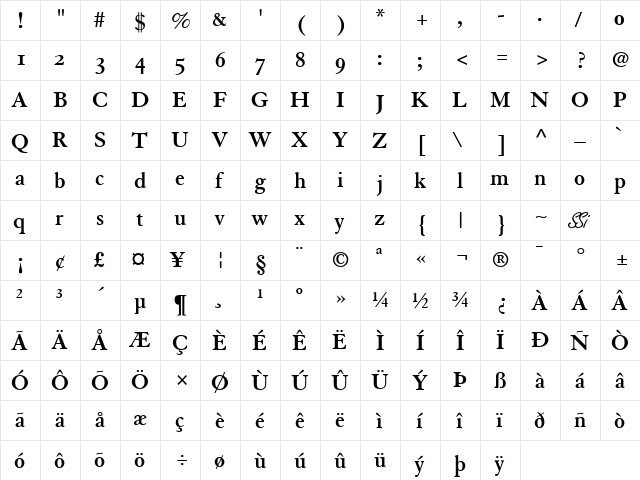
Tiasco OldStyle SSi Bold Old Style Figures
Design Context for Tiasco OldStyle SSi Typeface
Tiasco OldStyle SSi brings classic typographic sensibility to the table — its serifs and measured letterforms reflect centuries of print heritage. Its bold stroke weight gives it real presence on the page.